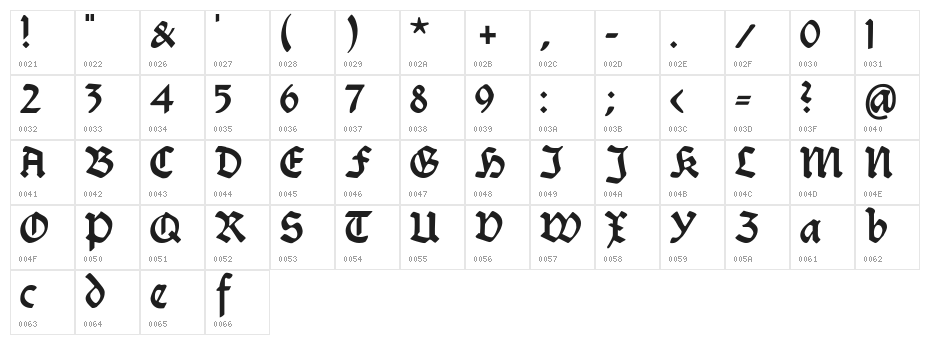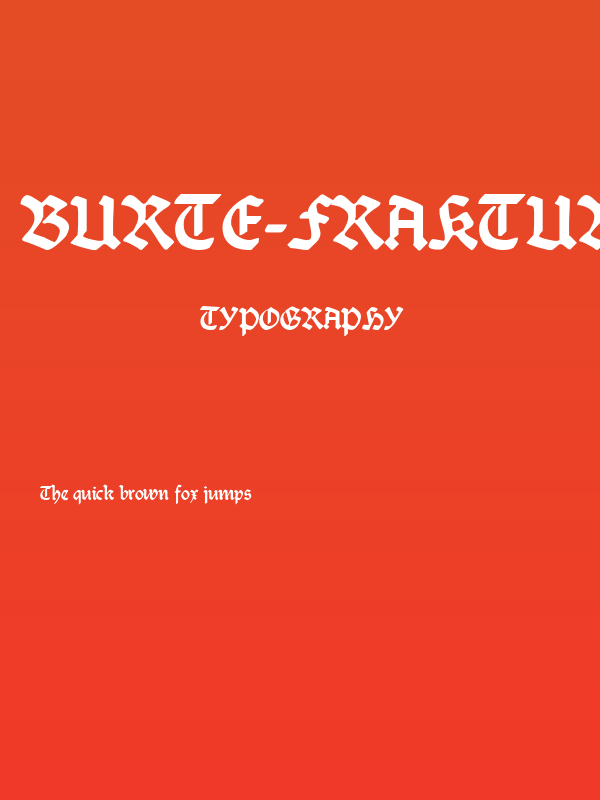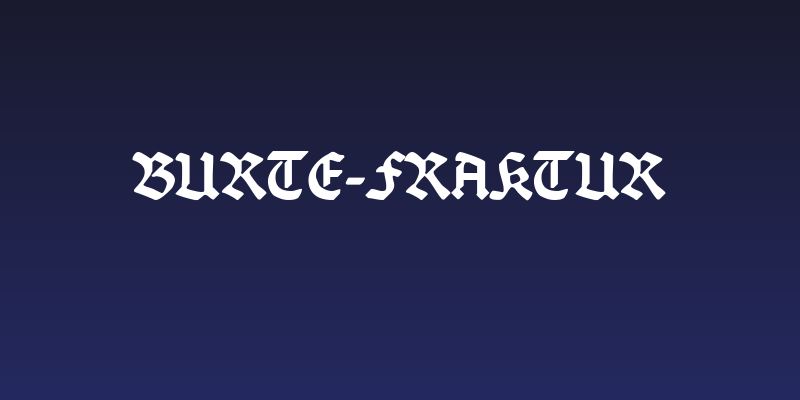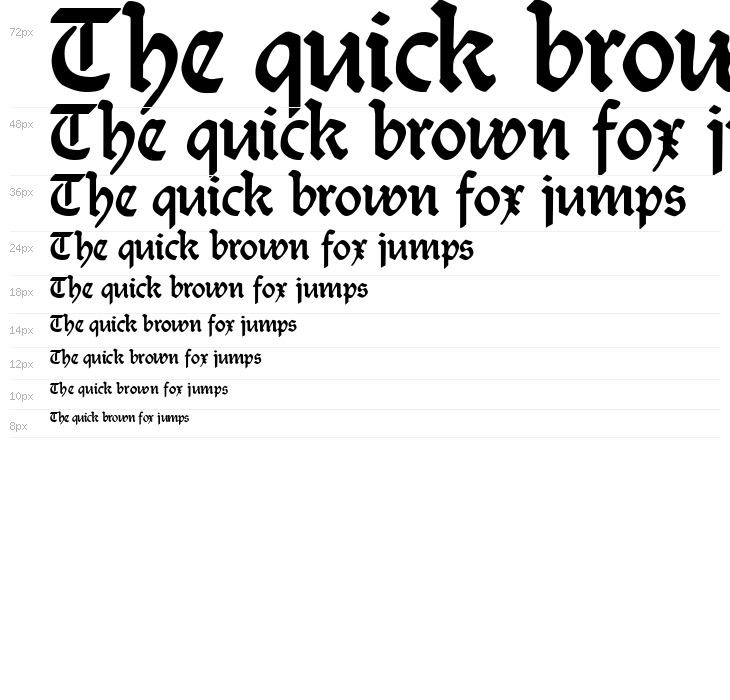
Burte-Fraktur Font
Burte-Fraktur Description
This font exhibits a traditional and ornate style, reminiscent of historical script used in medieval manuscripts. The characters are intricately designed with sharp, angular strokes and decorative elements that give it a distinct Gothic appearance. The uppercase letters are bold and commanding, while the lowercase letters maintain a consistent flow with unique flourishes. Numbers and special characters are crafted to match the overall aesthetic, ensuring a cohesive look across all text. The font's elaborate design makes it ideal for projects that require a touch of elegance and historical charm.
| Proposed Projects | Ideal for historical documents, wedding invitations, book covers, and branding that requires a classic and elegant touch. |